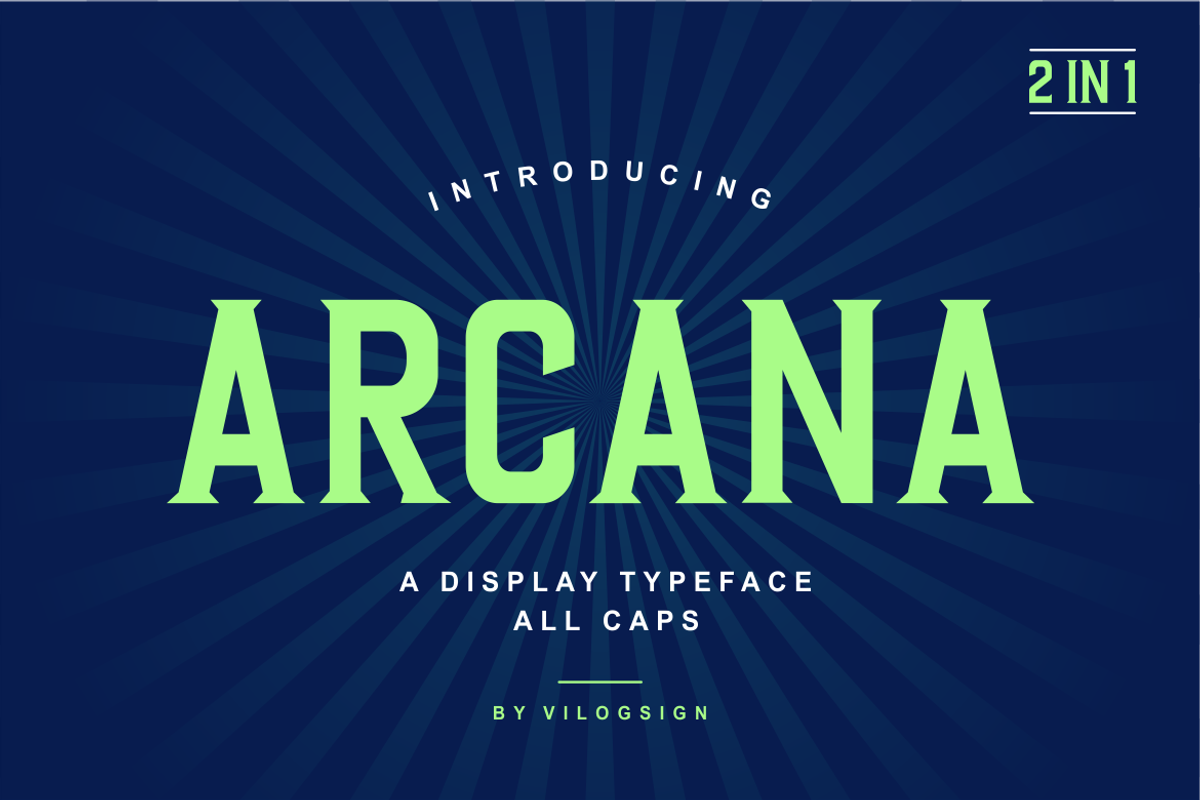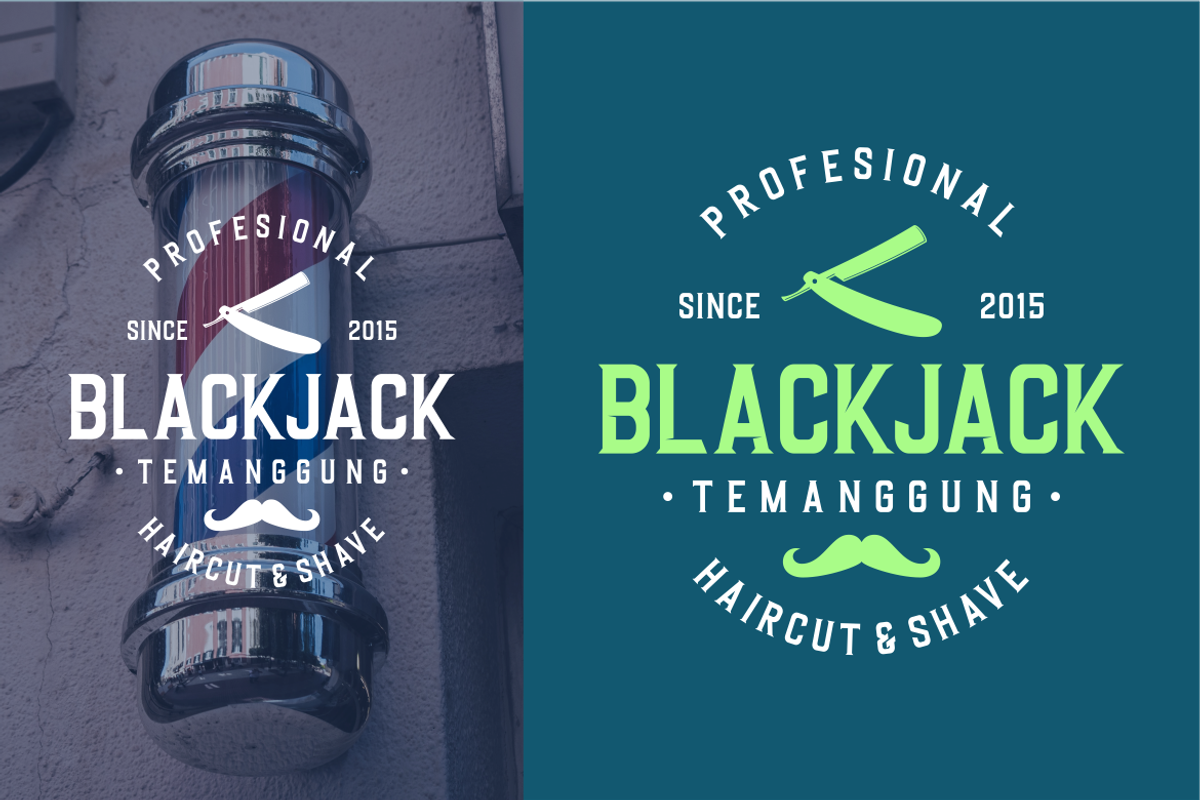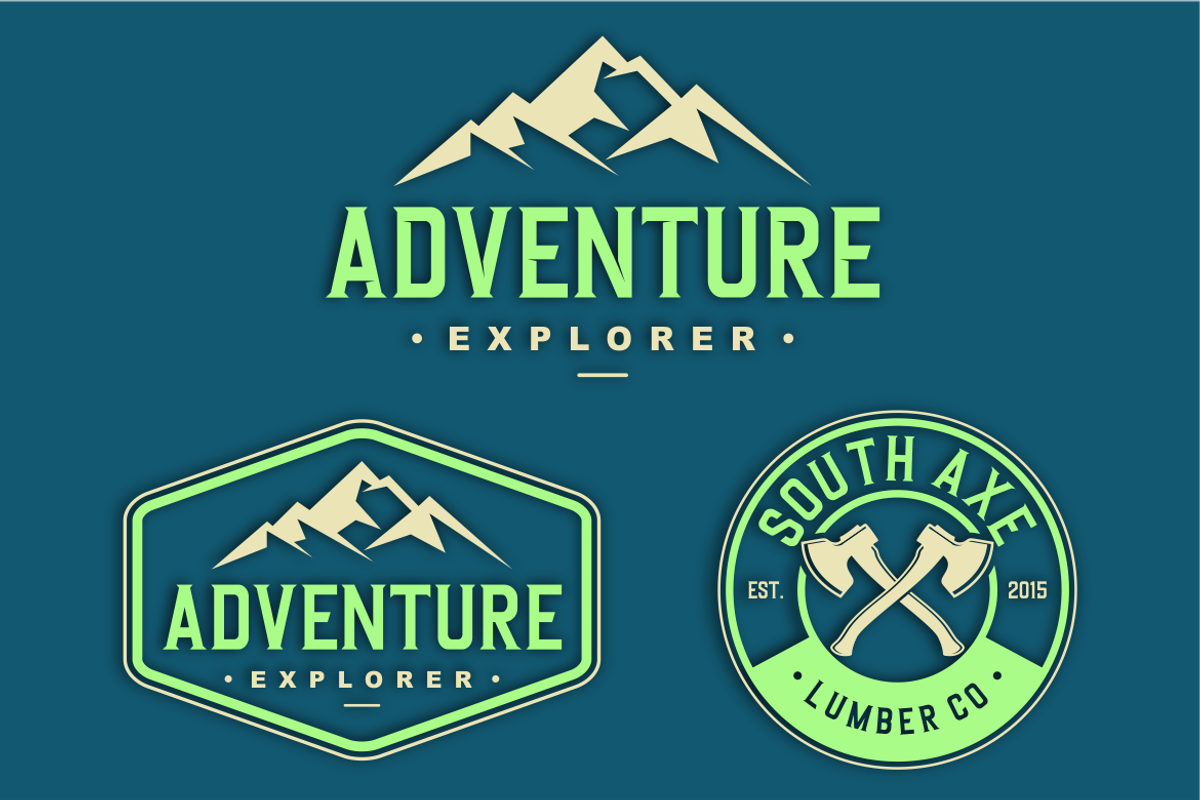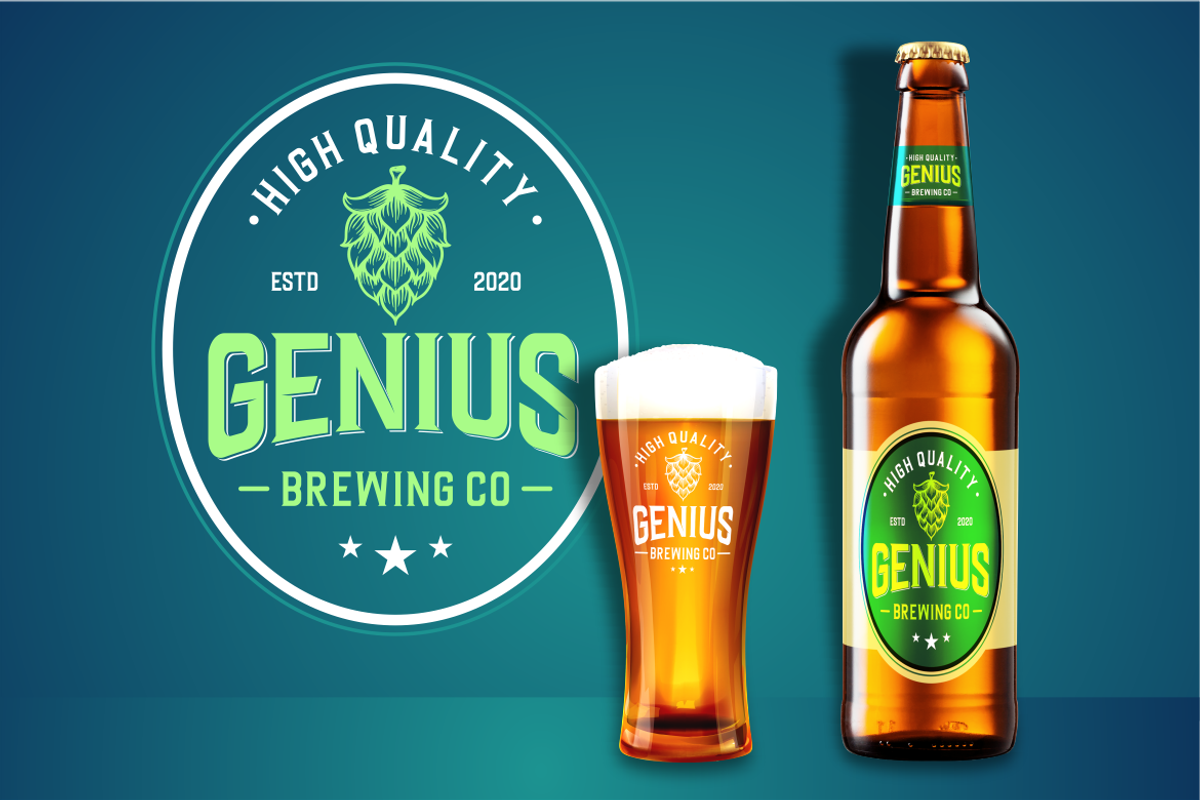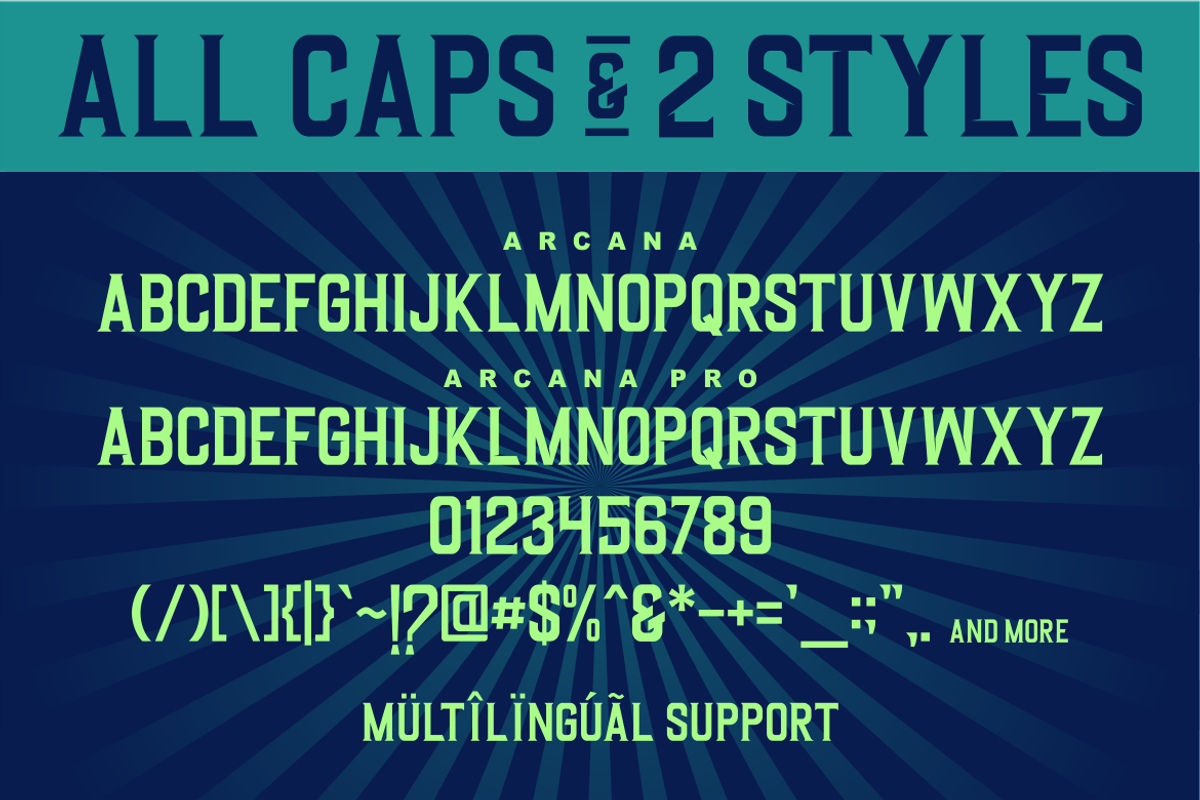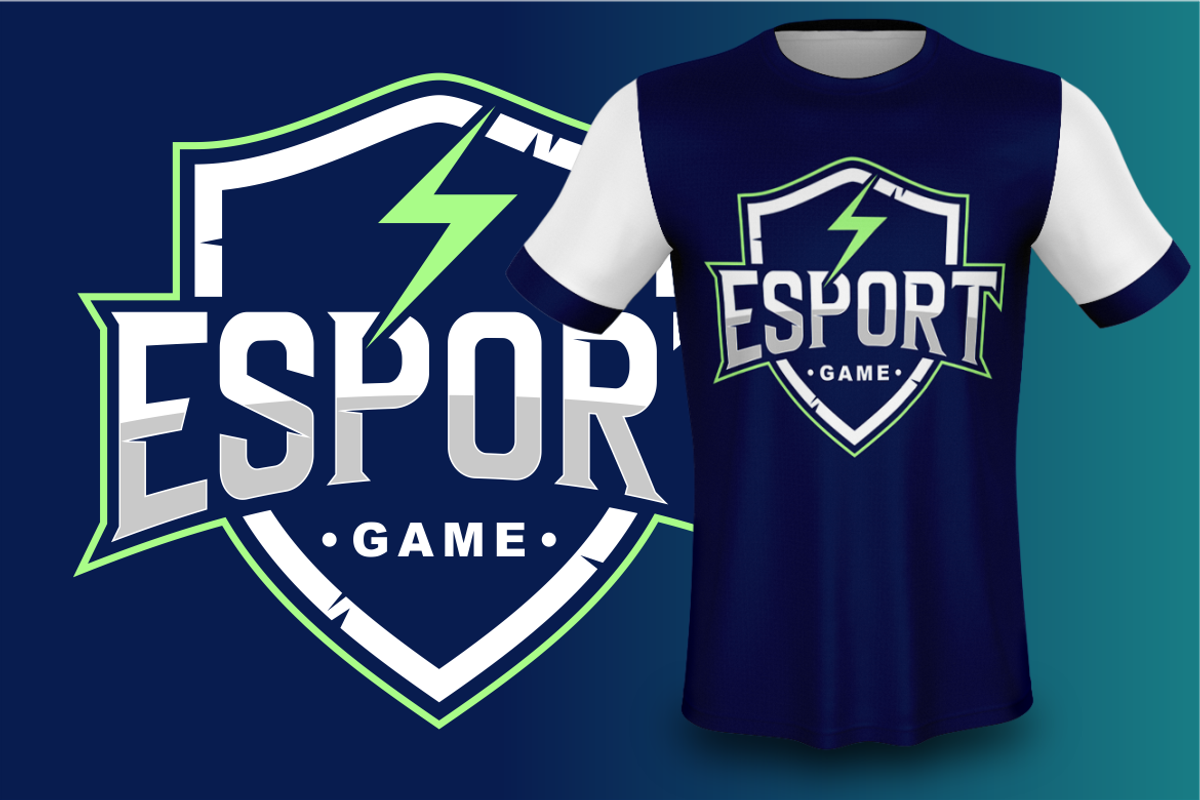
Arcana a Display Typeface Font
Hi,,, Introducing "Arcana" a display typeface!!!
2 in 1 font, Made with very serious and all caps to make this font so perfect for your need. This font is very good with multilingual support to complete your need. sharp typeface and vintage with an modern feel so make this font look strong, classic and vintage, very suitable to make a branding, t-shirt, magazine, fashion, quotes, logo, packaging, and other.